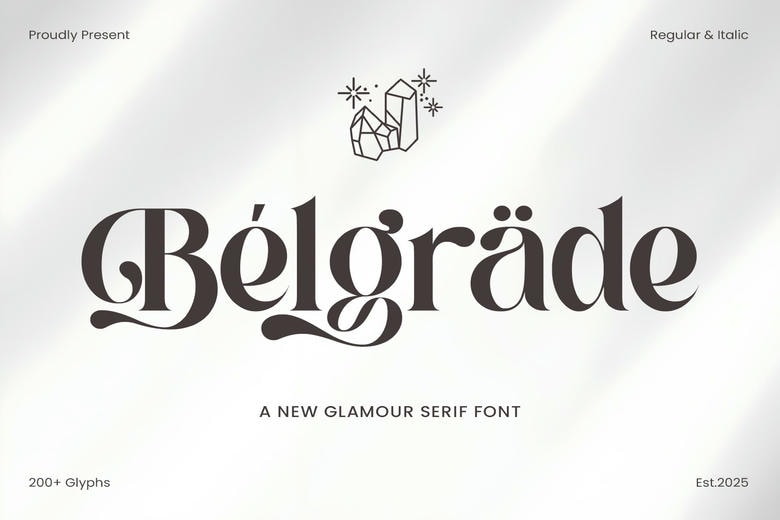
Belgrade Font
Belgrade is an elegant and sophisticated serif font designed to bring a timeless charm to any project. With its beautifully crafted ligatures, refined curves, and delicate details, this font exudes luxury and class. Each character is thoughtfully designed with beginning and ending swashes, adding a graceful and artistic touch to your typography.
Perfectly suited for high-end branding, Belgrade is an ideal choice for logos, quotes, blog posts, wedding invitations, product packaging, and more. Whether you’re designing for special occasions like birthdays, Easter, Thanksgiving, Christmas, or seasonal themes such as summer, spring, and autumn, this font enhances every project with its enchanting appeal. It’s also perfect for crafting, embroidery, SVG designs, and stylish lettering.
Belgrade Serif Font